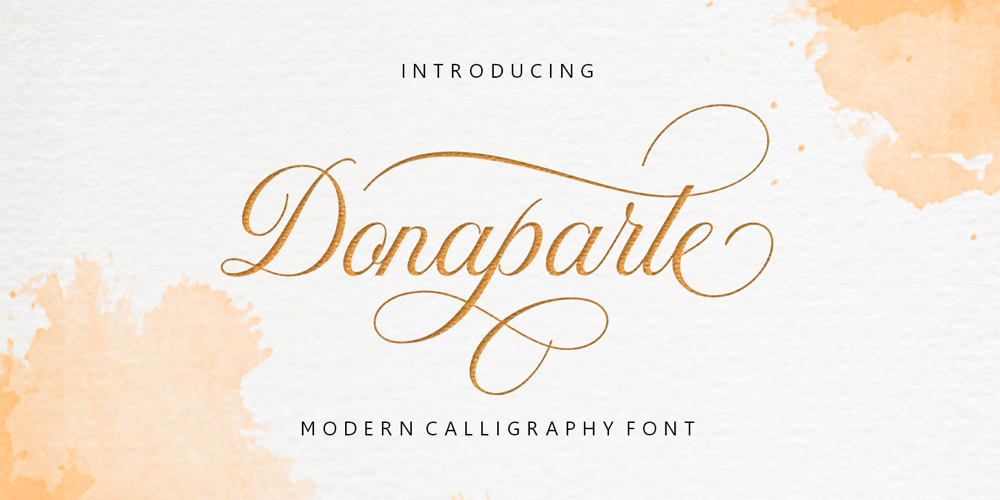
Donaparte script
Donaparte script font
Donaparte script Font Family was designed by Muhammad Rayyan and published by Slex Studio. Donaparte script contains 1 styles and family package options. new modern calligraphy font – Donaparte. This beautiful script is for those who need elegance and style for their designs and is perfect for wedding invitations, saving date cards and feminine branding.Donaparte has includes a full set of Basic Uppercase and Lowercase Characters, Numbers and Punctuation. Also contains ligatures and many alternative styles to perfectly recreate natural calligraphy (check the preview to see them all).What will you get? Laquittea (OTF, TTF) Laquittea Bold (OTF, TTF) If you have any questions about my products, feel free to write me a message or contact me by message here on FontBundles.Thank you so much for checking out my shop!